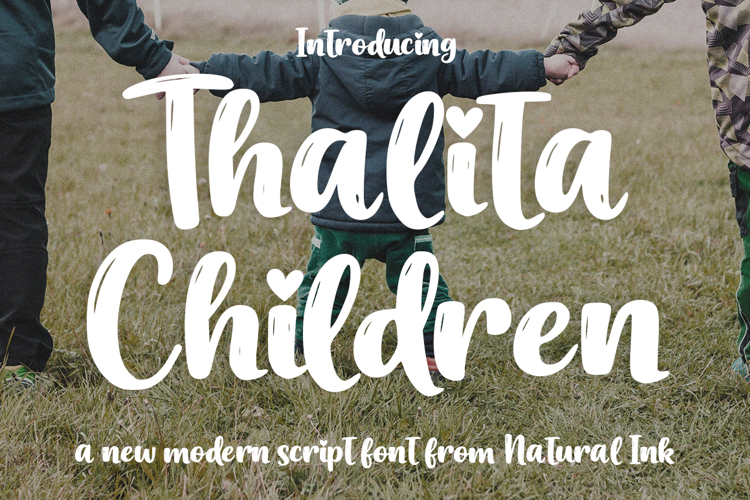
Thalita Children
Thalita Children An elegant modern script font designed to bring sophistication, charm, and a natural handwritten beauty to your designs. With its smooth flowing curves and graceful letterforms, this typeface captures the essence of modern elegance while maintaining a warm and Design touch.
Carefully crafted with attention to detail, each character flows seamlessly into the next, creating a harmonious rhythm that feels both refined and expressive. The stylish strokes and balanced proportions make it perfect for creating designs that feel luxurious, contemporary, and timeless.
This font is ideal for branding, logos, wedding invitations, packaging, social media graphics, and high-end editorial projects. Whether you're designing something romantic, fashionable, or minimalistic, this modern script will elevate your work with effortless elegance.
- Beautiful modern script style
- Smooth and natural handwriting flow
- Elegant ligatures and alternates
- Perfect for luxury branding and logos
- Ideal for invitations, packaging, and social media
Add a touch of modern elegance and artistic expression to your designs with this beautifully crafted script typeface.